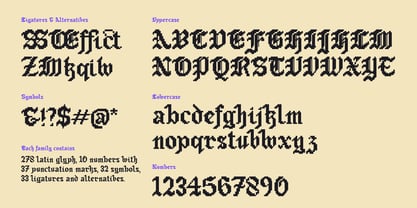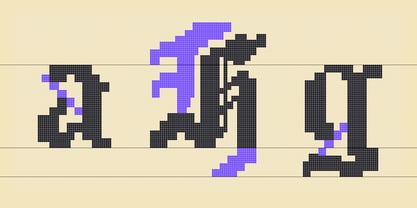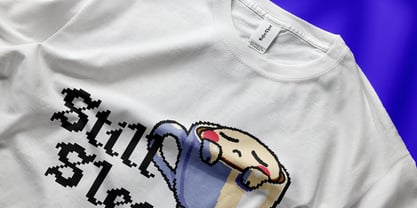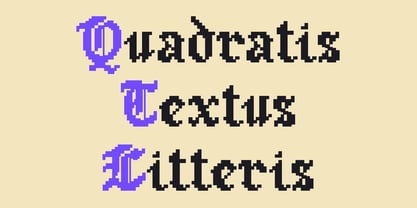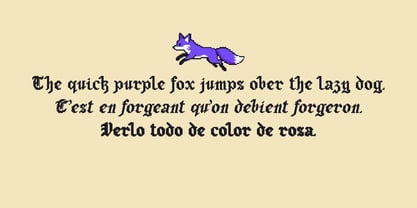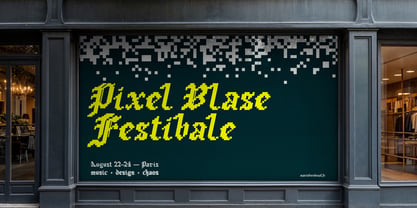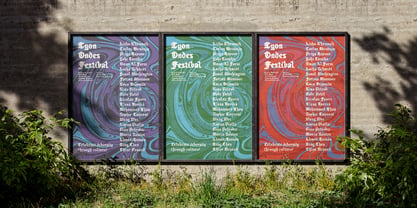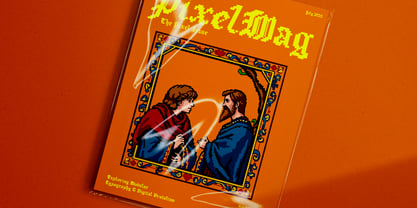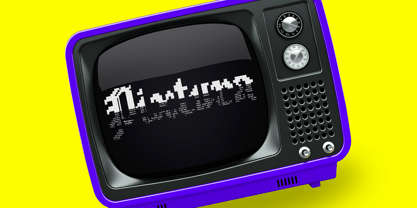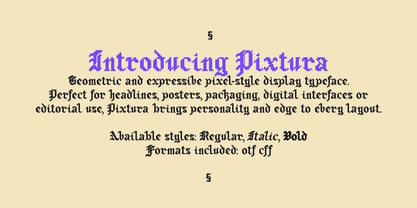
Pixtura is a hybrid typeface that merges medieval elegance with retro digital charm. Inspired by the dense, vertical rhythm of the 13th-century Textura gothic script and fused with the grid-bound simplicity of pixel art, Pixtura offers a bold yet refined typographic voice for modern creatives.
Every glyph is drawn on a strict orthogonal bitmap grid, echoing the rigid construction of early video game graphics. At the same time, it retains the narrow proportions, sharp strokes, and fractured forms of historical Textura lettering. This combination creates a unique interplay between tradition and technology—making Pixtura both visually striking and functionally versatile.
Where to use Pixtura? This font is ideal for branding projects, editorial layouts, album covers, and packaging with a nostalgic or experimental tone. It fits perfectly into digital culture themes, gaming interfaces, glitch aesthetics, underground fashion, music posters, or cultural festivals. Whether you're designing a retro magazine spread or coding a pixel-perfect UI, Pixtura makes a statement.
The typeface includes three styles—Regular, Italic, and Bold—each crafted with the same structural discipline and textural richness. Despite its pixelated structure, Pixtura offers great readability, especially at larger sizes, where its modular rhythm becomes a strong design element.
Why is it unique? Pixtura is not just a decorative display font—it’s a bridge between centuries. It transforms the intense energy of medieval calligraphy into a systemized, digital-friendly form. This duality makes it a powerful choice for designers looking to combine legacy with innovation.
Designed by Marie Verdenal in 2025, Pixtura was born from a fascination with modular aesthetics, historical scripts, and digital constraints. It invites you to explore a new visual language—where gothic heritage meets the bitmap grid.